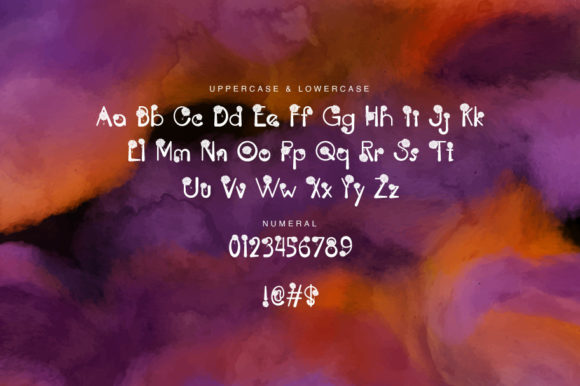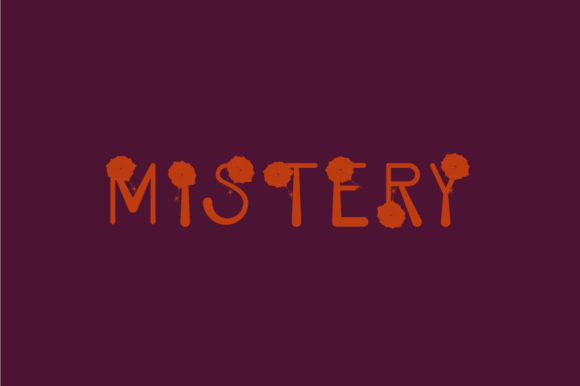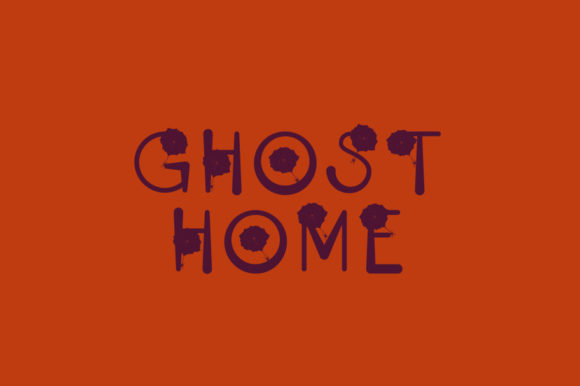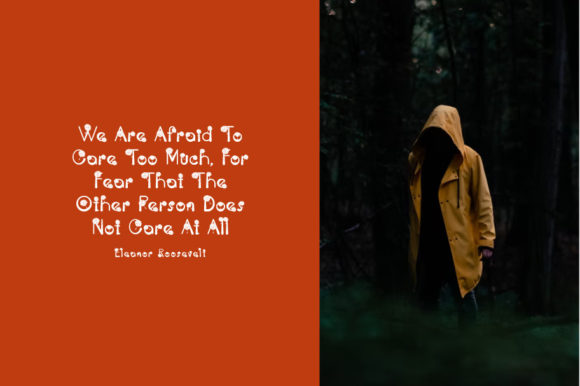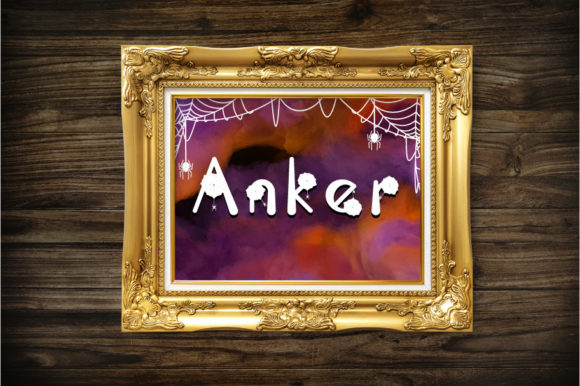
Introducing Anker Font: The Ultimate Choice for Spooky Designs
Are you looking for a font that can add a touch of spookiness and boldness to your designs? Look no further than Anker Font. This decorative font is perfect for Halloween crafts, horror movie posters, t-shirts, and any other project that requires a spectacular look. In this article, we’ll dive into the features and benefits of Anker Font, and explore how you can use it to take your designs to the next level.
What is Anker Font?
Anker Font is a bold and spooky decorative font that is designed to make a statement. Its unique and eye-catching design makes it perfect for projects that require a touch of horror or Halloween-themed flair. The font is highly versatile and can be used for a wide range of applications, from crafting and designing to commercial use.
Key Features of Anker Font
- Bold and Spooky Design: Anker Font features a bold and spooky design that is sure to grab attention. Its unique and intricate details make it perfect for creating eye-catching designs.
- Highly Versatile: Anker Font is highly versatile and can be used for a wide range of applications, including Halloween crafts, horror movie posters, t-shirts, and more.
- Easily Readable: Despite its bold and decorative design, Anker Font is easily readable, making it perfect for use in titles, headings, and other design elements.
Uses of Anker Font
Anker Font is a highly versatile font that can be used for a wide range of applications. Here are some of the most popular uses of Anker Font:
- Halloween Crafts: Anker Font is perfect for Halloween crafts, including party invitations, decorations, and other DIY projects.
- Horror Movie Posters: Anker Font is a great choice for horror movie posters, adding a touch of spookiness and horror to your designs.
- T-Shirts and Apparel: Anker Font is perfect for use on t-shirts and other apparel, adding a bold and eye-catching design to your products.
- Signage and Displays: Anker Font can be used for signage and displays, adding a touch of drama and attention-grabbing appeal to your designs.
Tips for Using Anker Font
Here are some tips for using Anker Font to get the most out of this amazing font:
- Use it Sparingly: Anker Font is a bold and attention-grabbing font, so use it sparingly to avoid overwhelming your designs.
- Pair it with Other Fonts: Anker Font pairs well with other fonts, so experiment with different combinations to find the perfect look for your designs.
- Adjust the Size and Color: Adjust the size and color of Anker Font to suit your designs, using larger sizes for headings and smaller sizes for body text.
Anker Font is a bold and spooky decorative font that is perfect for adding a touch of horror and Halloween-themed flair to your designs. Its highly versatile design makes it suitable for a wide range of applications, from crafting and designing to commercial use. With its bold and eye-catching design, Anker Font is sure to grab attention and make your designs stand out. So why wait? Download Anker Font today and start creating spooky and spectacular designs!